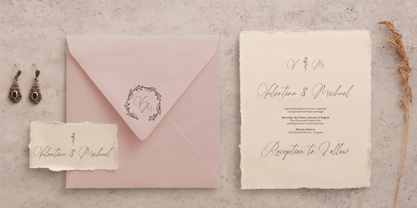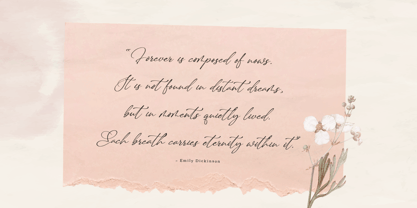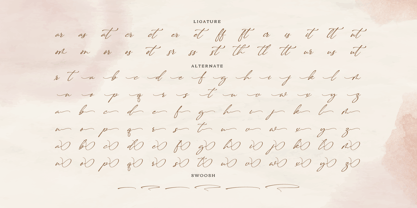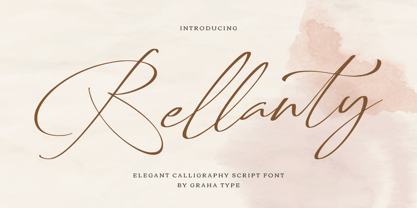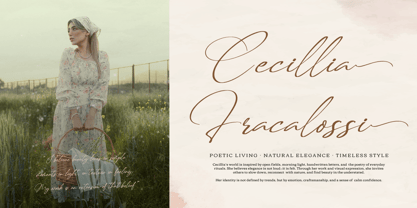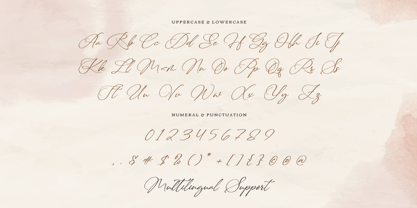
Bellanty
by Graha Type
The Bellanty Font Family was designed by Toni Nugraha and published by Graha Type. Bellanty contains 1 styles.
Bellanty is an elegant calligraphy script font with smooth strokes and graceful curves, created to deliver a luxurious and romantic feel. Perfect for designers who need a classy handwritten style for both modern and timeless projects. This font is ideal for logos, wedding invitations, branding, fashion and beauty designs, social media graphics, packaging, stationery, and editorial layouts.
Designers: Toni Nugraha
Publisher: Graha Type
Foundry: Graha Type
Design Owner: Graha Type